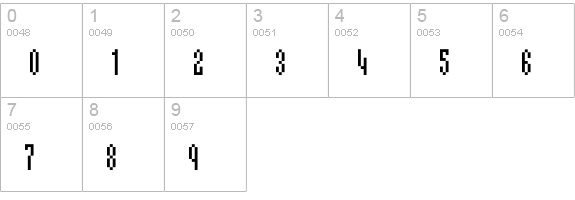
Union-SquareOne font is a modern and stylish typeface that is sure to catch the attention of any designer or typographer. With its clean lines and geometric shapes, this font exudes a sense of professionalism and sophistication. Whether you are working on a logo design, branding project, or website, Union-SquareOne font will add a touch of elegance and uniqueness to your work. Its versatility allows it to be used in a variety of settings, from bold headlines to subtle body text. One of the best features of Union-SquareOne font is that it is freely available to download at FontsMarket.com. This means that you can add this stunning typeface to your collection without any cost. It's a true gem for any designer who wants to enhance their creative projects without breaking the bank. The characters in Union-SquareOne font are meticulously crafted, ensuring a seamless reading experience for your audience. The font includes a wide range of glyphs, including punctuation marks, numerals, and special characters, making it suitable for multiple languages and design purposes. Designed with the utmost attention to detail, Union-SquareOne font is optimized for legibility, ensuring that your text remains clear and easy to read, even at smaller sizes. Its clean and modern aesthetic makes it perfect for both print and digital projects, giving you the freedom to create stunning designs across various mediums. So, if you're looking for a versatile and visually appealing font that won't cost you a dime, look no further than Union-SquareOne font. Download it for free at FontsMarket.com and elevate your design projects with its unique charm and elegance.